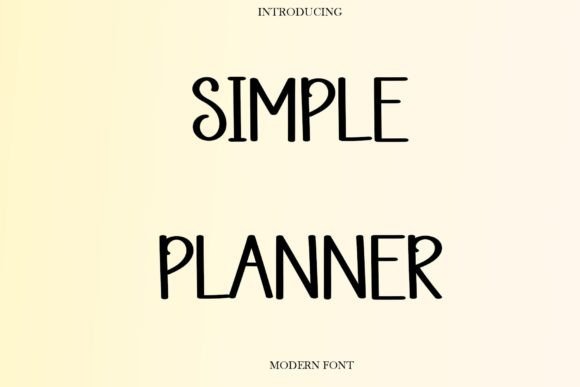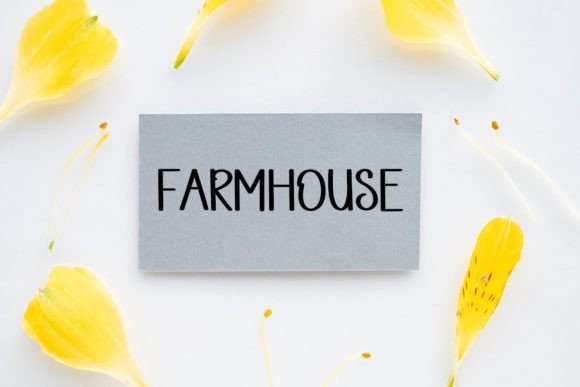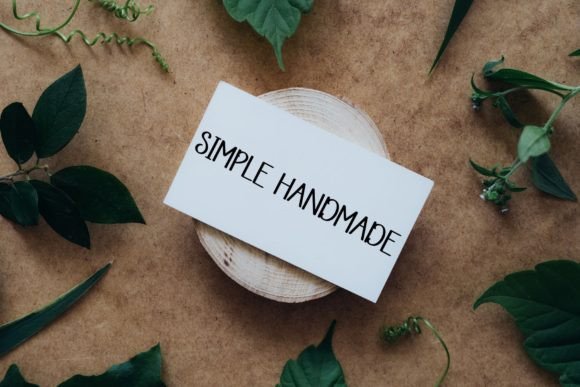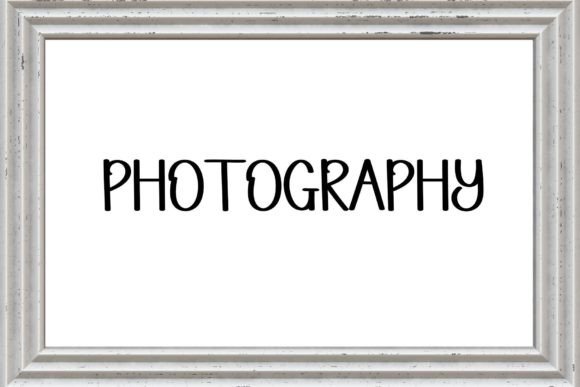
About Simple Planner Font
“Simple Planner: Where Sweetness Meets Simplicity in Handwritten Typography
Introducing Simple Planner, a sweet and clean handwritten font designed to bring a touch of natural charm to your creative projects. With characters that gracefully dance along the baseline, this font adds a delightful and effortless elegance to any design endeavor you wish to undertake. Whether you’re crafting greeting cards, creating social media graphics, or working on any project that demands a natural and unassuming look, Simple Planner will infuse your designs with a sense of warmth and simplicity, capturing the hearts of your audience.
The allure of Simple Planner lies in its sweet and clean demeanor, where each letter is thoughtfully crafted to exude an air of simplicity and charm. Its characters dance along the baseline with graceful movements, creating a visual rhythm that resonates with the essence of nature. Imagine your greeting cards adorned with Simple Planner’s handwritten script, conveying heartfelt messages with a touch of organic elegance. Picture your social media posts featuring its natural letterforms, creating an authentic and inviting atmosphere. With Simple Planner, your designs come to life with a touch of sweetness, making them visually appealing and emotionally resonant.
One of Simple Planner’s standout features is its ability to add a natural look to any design project. Its clean and unpretentious style makes it a versatile choice for a wide range of applications, from handmade crafts to digital artwork. Whether you’re designing product packaging, creating posters, or working on any project that requires a genuine and approachable touch, Simple Planner enhances your designs with its natural charm, making them stand out with authenticity.
Moreover, Simple Planner is more than just a font; it’s an embodiment of simplicity and sweetness. Its handwritten elegance resonates with individuals who appreciate the genuine beauty of unadorned typography, making it a favorite among designers and enthusiasts seeking a font that exudes natural charm and sincerity. Its presence adds a touch of authenticity to your designs, making them visually captivating and unforgettable.
In a world where authenticity is cherished, Simple Planner helps you make a statement. It speaks the language of sweetness and simplicity, resonating with those who appreciate the beauty of handwritten artistry. Whether you’re designing for personal projects, small businesses, or any creative endeavor, Simple Planner becomes your trusted companion, guiding you toward design excellence.
So, why settle for the complex when you can embrace the simple with Simple Planner? Let this sweet and clean handwritten font be the muse for your creative expressions, and watch as your projects come to life with natural charm, authenticity, and timeless beauty. Let your creativity flow, and let Simple Planner be the brushstroke that paints your ideas into visually captivating masterpieces, leaving a lasting impression on the hearts of your audience.”